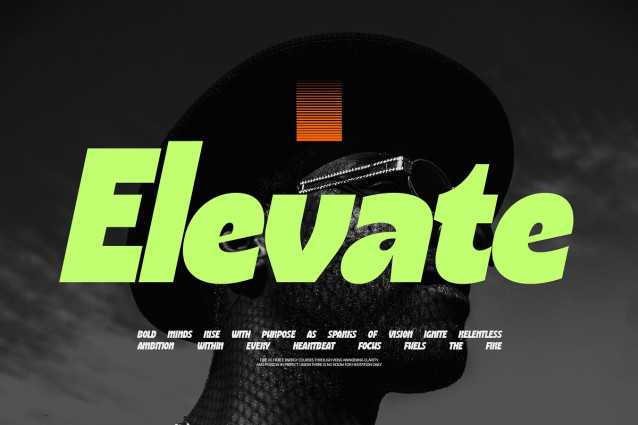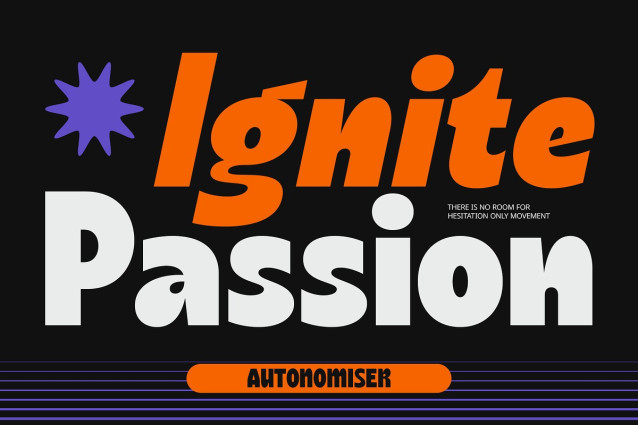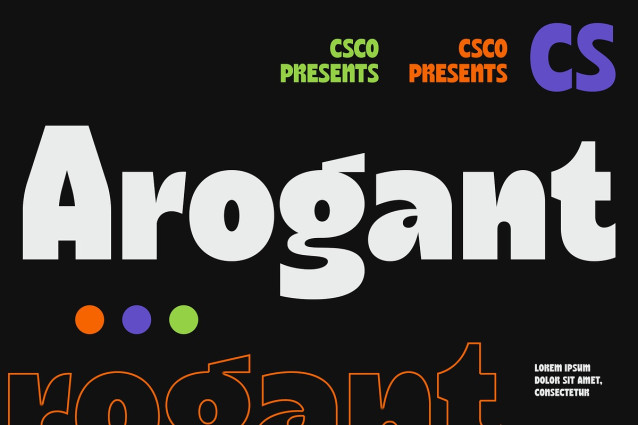
CS Arogant Font
CS Arogant Font is a modern sans-serif font that fuses bold, confident shapes with a funky, cheerful attitude. Its well-defined yet slightly quirky letterforms deliver a fresh, energetic presence, perfect for design projects that need to make a strong and creative first impression.
Clean, Confident, and Playfully Expressive While its structure remains clean and readable, CS Arogant introduces a subtle sense of play through unexpected curves and proportions. This makes it feel lively without being chaotic, ideal for projects that want to stay modern and fun at the same time.
Made to Stand Out Whether you’re designing for music festivals, youth brands, fashion packaging, or digital media, CS Arogant brings a vibrant personality to your typography. It’s a font that refuses to be ignored—bold, expressive, and full of character.
A Modern Font with Funky Flair For designers seeking a standout sans-serif that doesn’t sacrifice structure for fun, CS Arogant offers the perfect balance. Use it in headlines, posters, logos, or display graphics where boldness meets charm. CS Arogant thrives in headlines, logos, packaging, and any design space where bold visual identity is key. It’s a font that encourages designers to be daring, creative, and a little unconventional—without ever losing its modern polish.